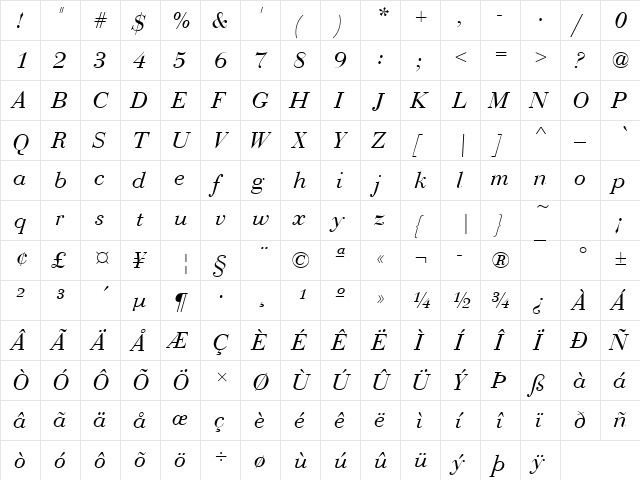
BodoniNo1URWD Italic Font Preview
BodoniNo1URWD Italic
Design Context for BodoniNo1URWD Typeface
BodoniNo1URWD offers clean, dependable letterforms without strong stylistic allegiance, making it a practical choice for designers who need flexibility. The slanted form adds forward momentum and visual energy.